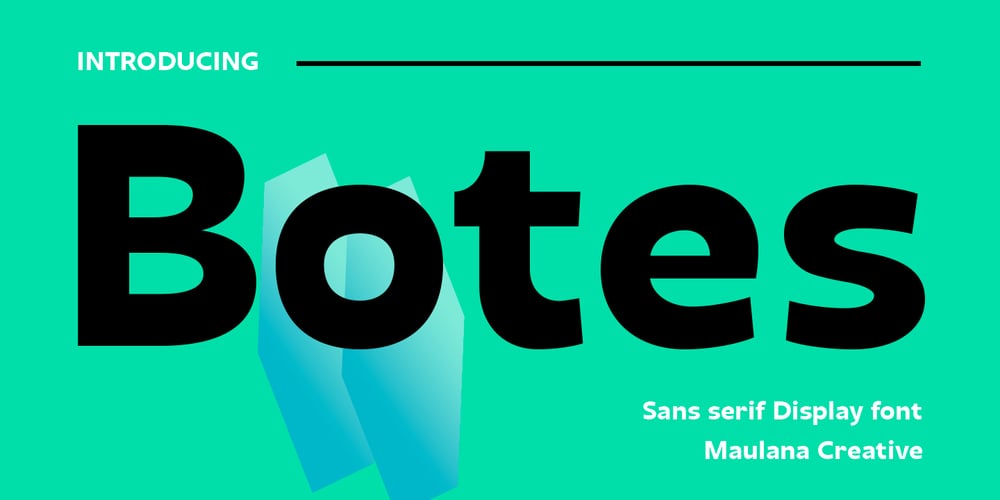
MC Botes Font Family was designed by Gilang Maulana and published by Maulana Creative. MC Botes contains 1 styles and family package options. Botes is a modern semi-geo humanist sans serif font. With medium stroke, fun character with a bit of ligatures and alternates. To give you an extra creative work. Botes font support multilingual more than 100+ language. This font is good for logo design, Social media, Movie Titles, Books Titles, a short text even a long text letter and good for your secondary text font with script or serif. Make a stunning work with Botes font. Cheers, Maulana Creative